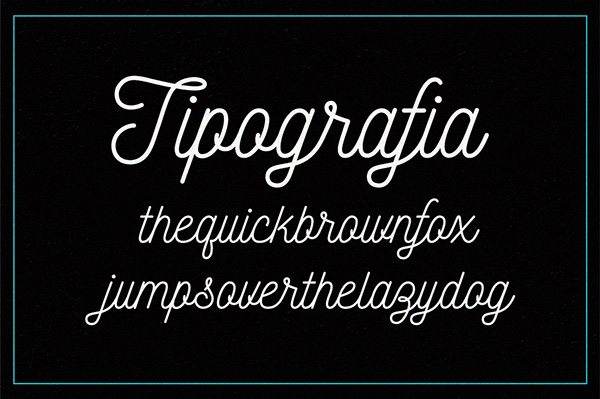
Nickainley Font
The font is a Monoline Script font with a touch of classic and vintage in uppercase, lowercase characters, numeral and punctuation.
It can be used for various purposes such as logos, badges, wedding invitations, t-shirts, letterhead, signage, labels, news, posters, badges etc. By Seniors Studio.